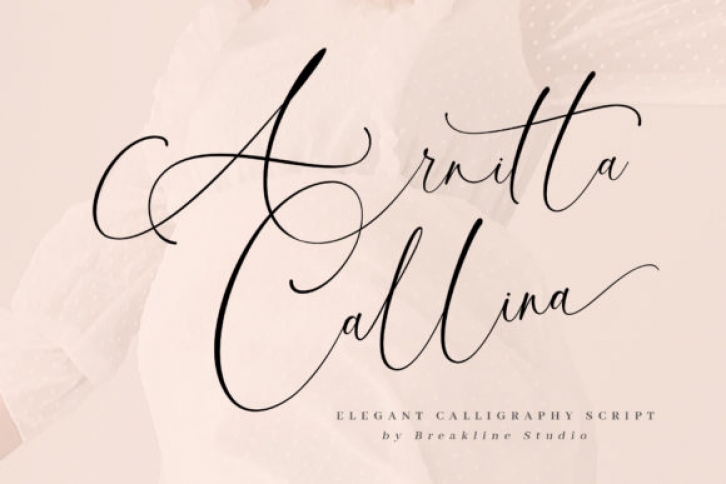
Arnitta Callina is a new fresh & elegant script with a handmade calligraphy style. The impression is classic, yet modern, making Arnitta Callina a great choice for all your creativity.